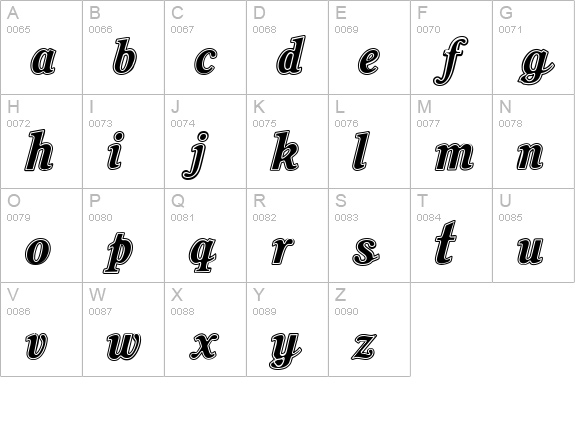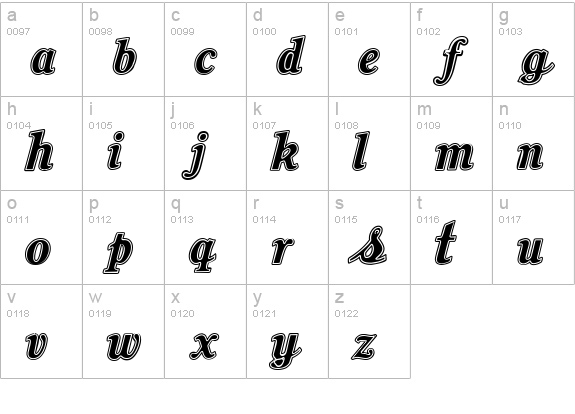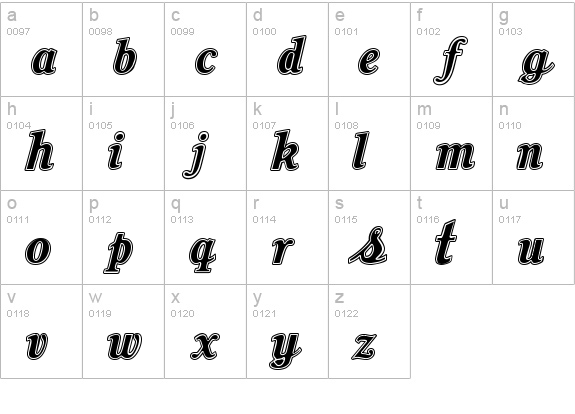
oil Font Details
Introducing the captivating and versatile Oil Font - a modern typeface that exudes elegance and sophistication. With its sleek lines and unique design elements, this font is perfect for adding a touch of style to any project. Whether you're creating a logo, designing a brochure, or working on a website, Oil Font is sure to make a lasting impression. What's even better is that Oil Font is completely free to download at FontsMarket.com. Yes, you read that right - you can access this stunning font at no cost, allowing you to elevate your designs without breaking the bank. So why wait? Head over to FontsMarket.com now and enhance your creative projects with the sleek and stylish Oil Font.